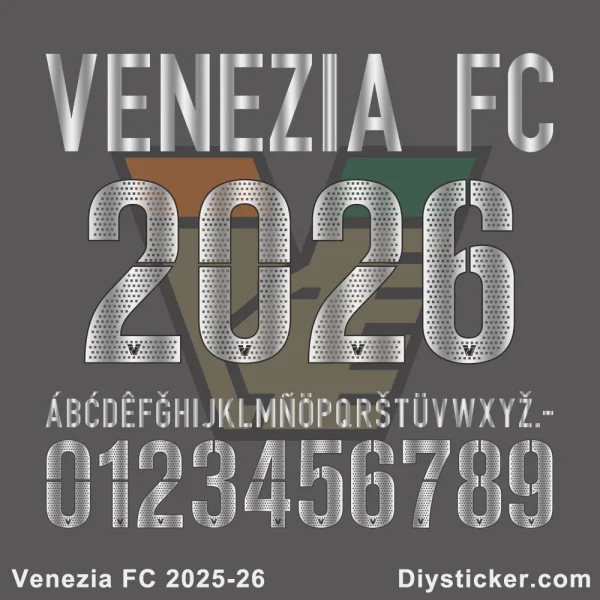
Design with Italian Football Fashion: The Venezia FC 2025-2026 Font
Embrace the unique blend of football heritage and avant-garde style with the Venezia FC 2025-2026 Font. This is the officially-styled typeface of one of the world’s most design-forward football clubs, perfect for creating kits, apparel, and graphics that stand out with Venetian flair.